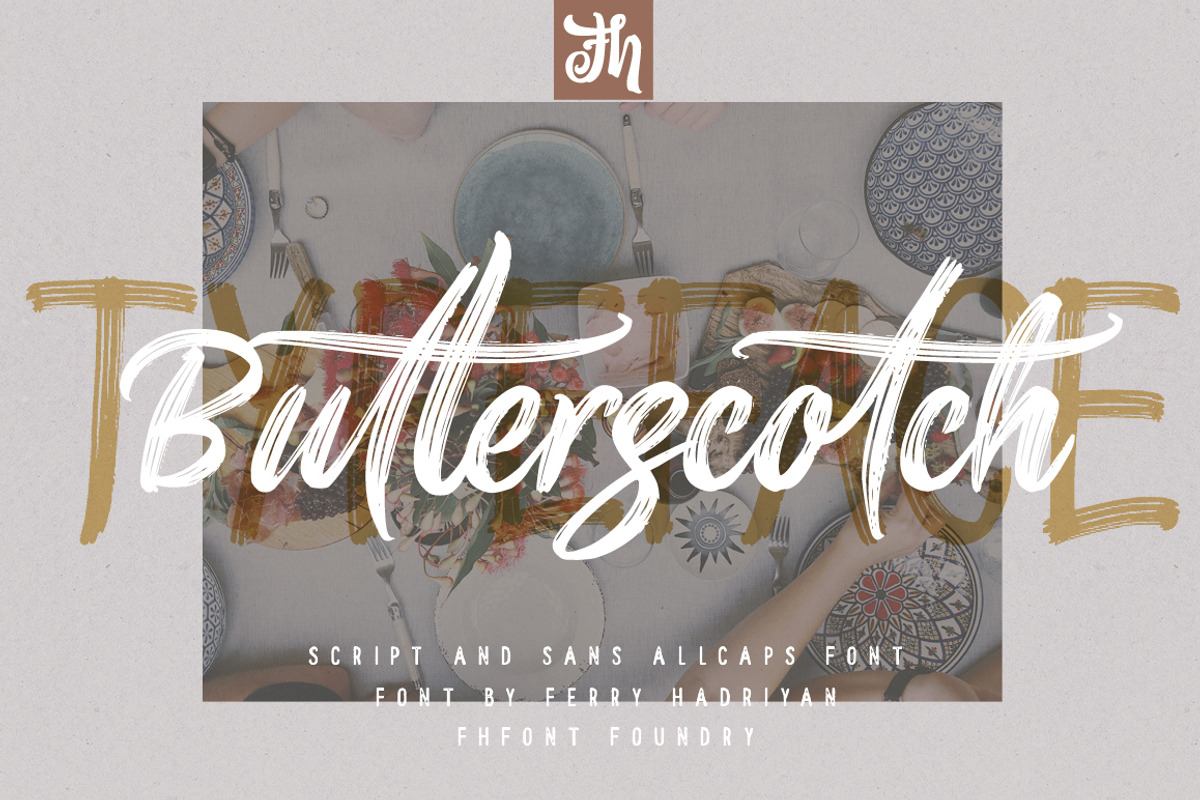
The Butterscotch - Handwritten Font Free Download is a stylish and playful handwritten font that brings a personal, artistic touch to your designs. Perfect for creating custom logos, invitations, greeting cards, and social media graphics, this font adds a fun and unique flair. Please note, for commercial use, a license must be purchased. You can download it for free for testing purposes.
With its smooth, flowing strokes and charming handwritten style, the Butterscotch - Handwritten Font Free Download is ideal for projects that require a creative, warm, and friendly feel. Whether you're working on branding, personal stationery, or digital content, this font will give your work a distinctive, personal touch.